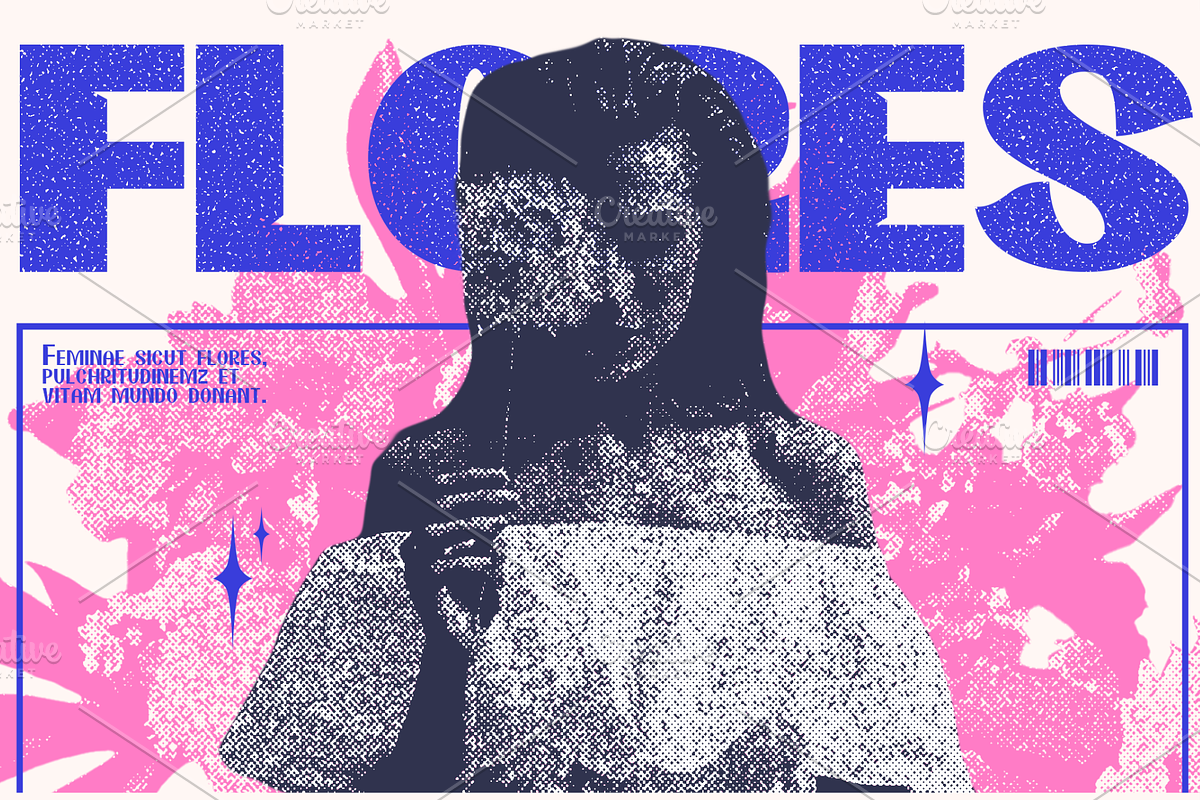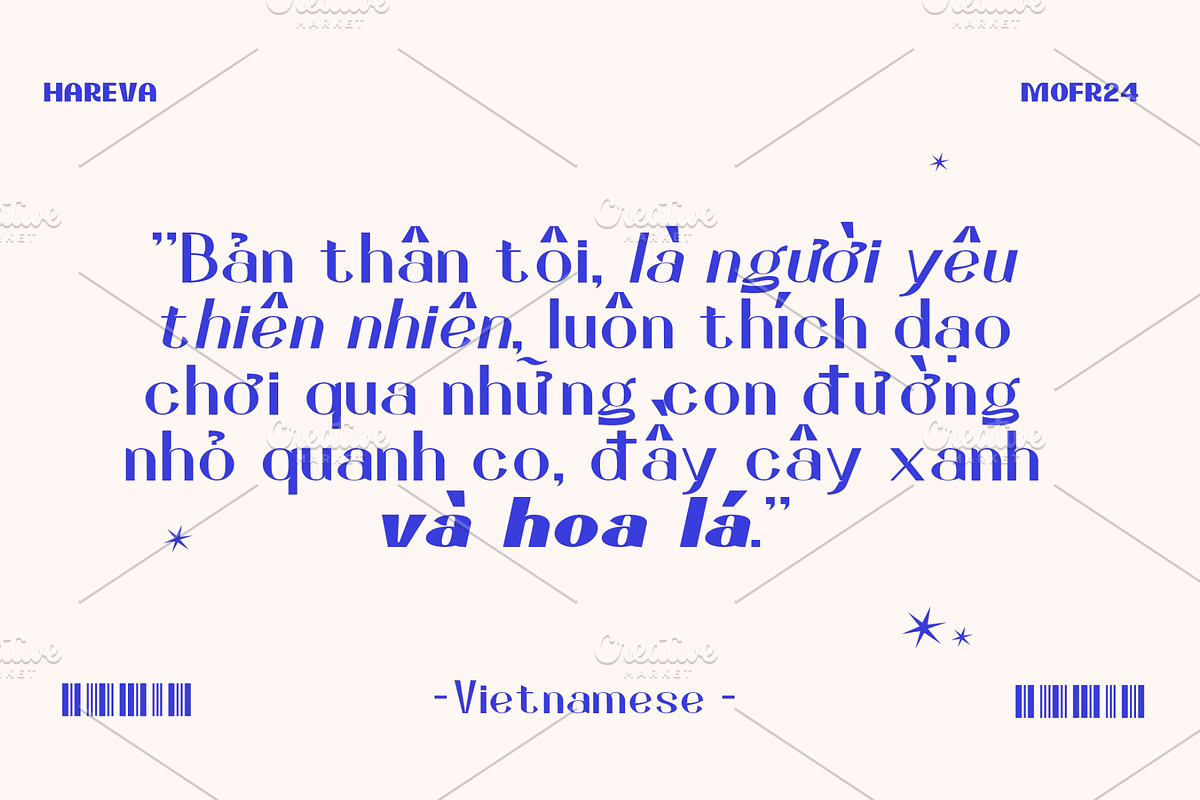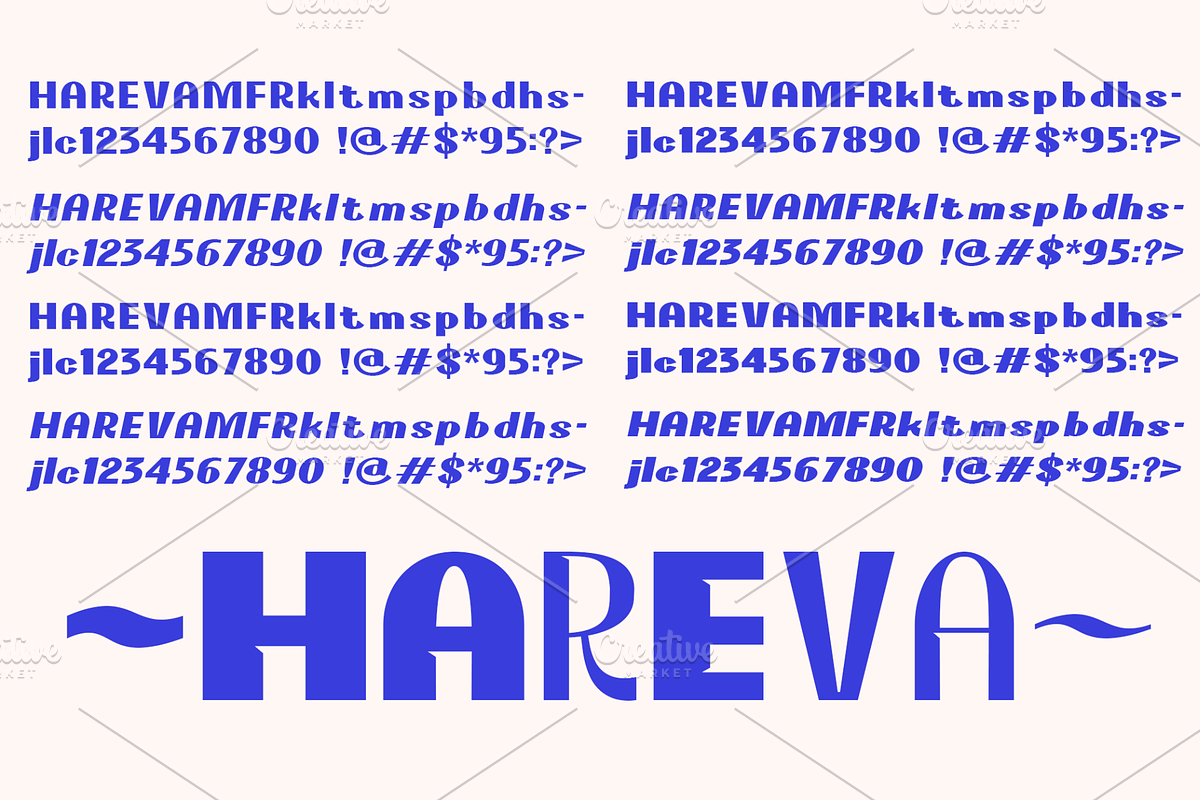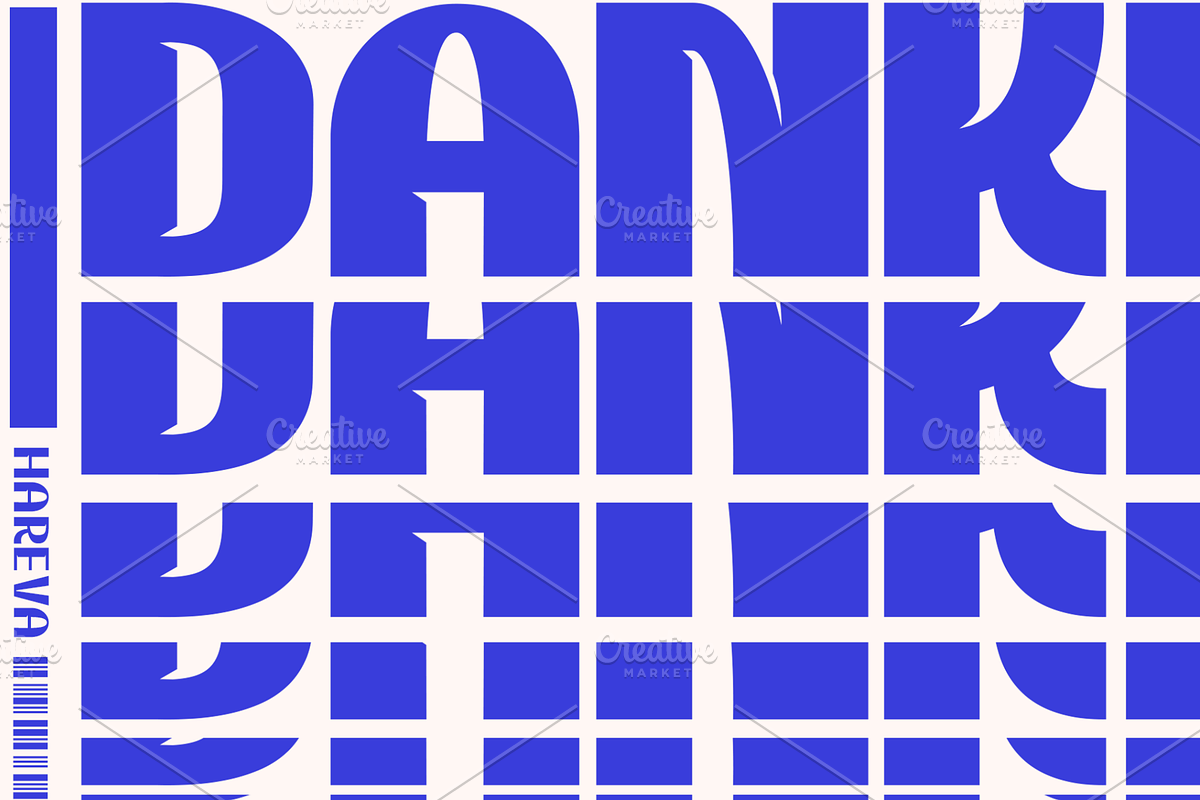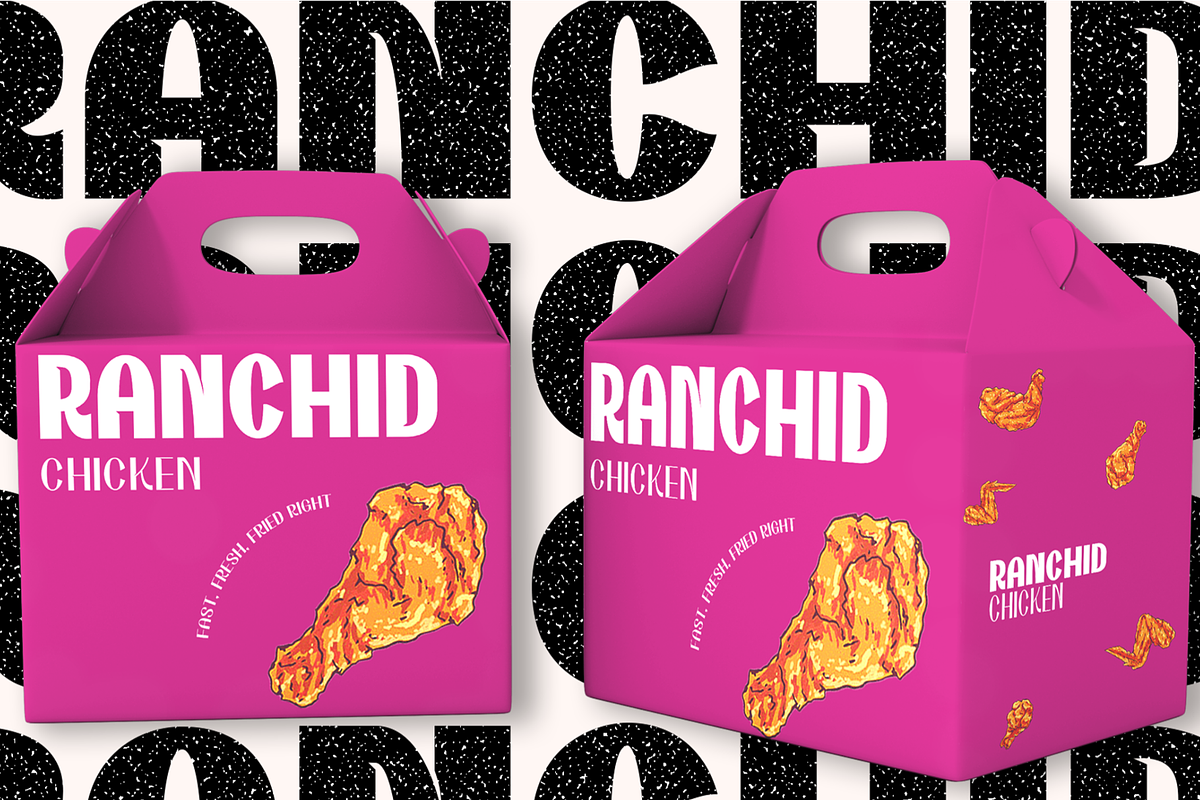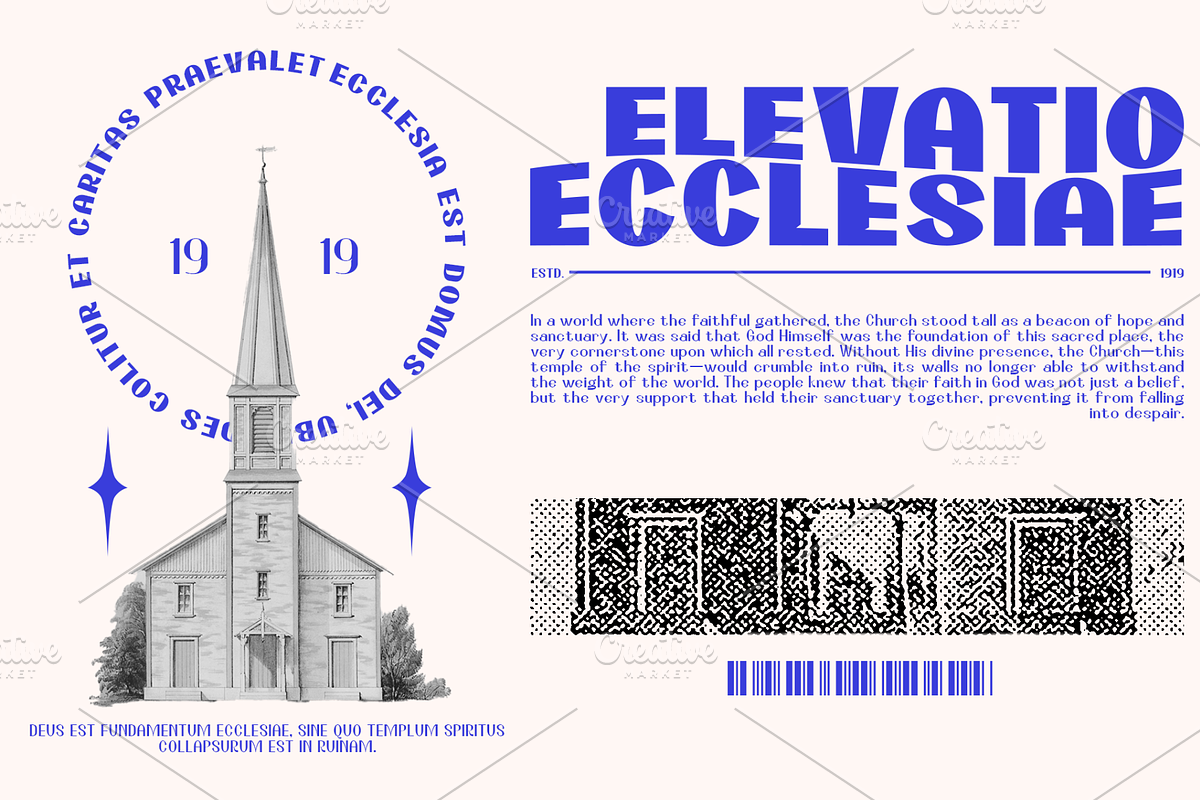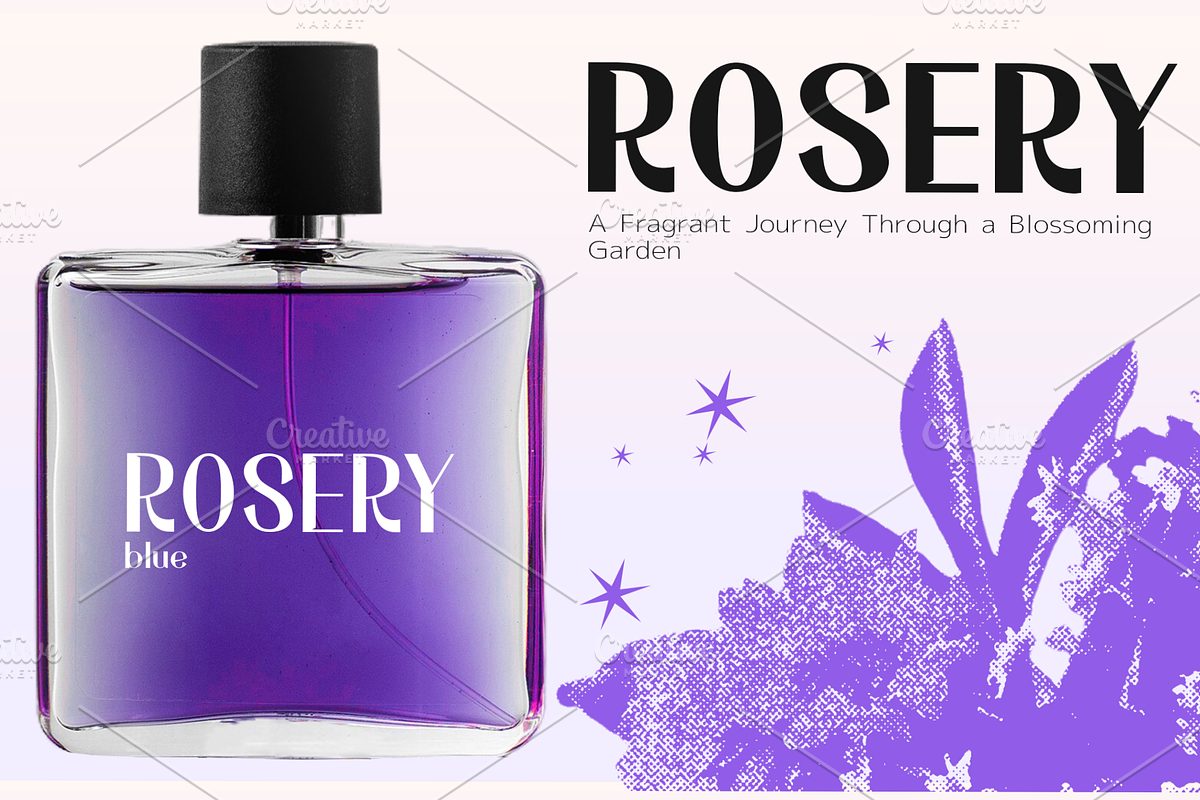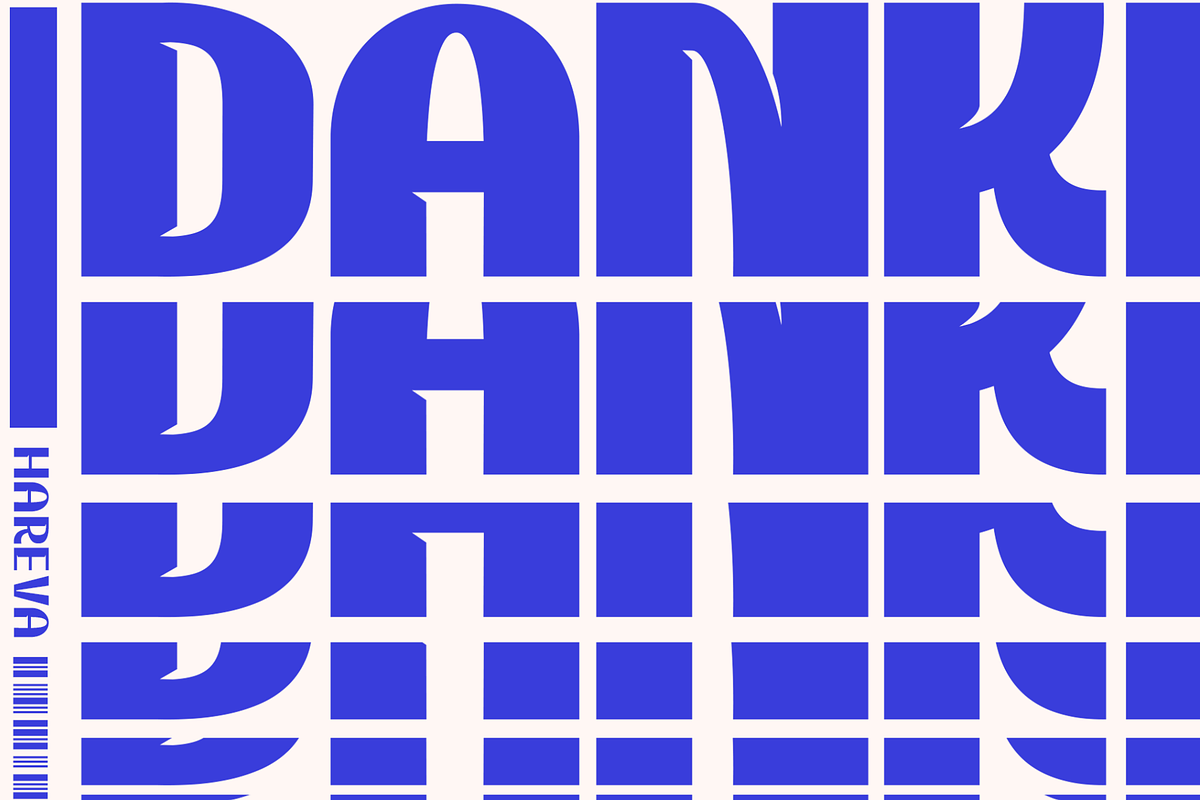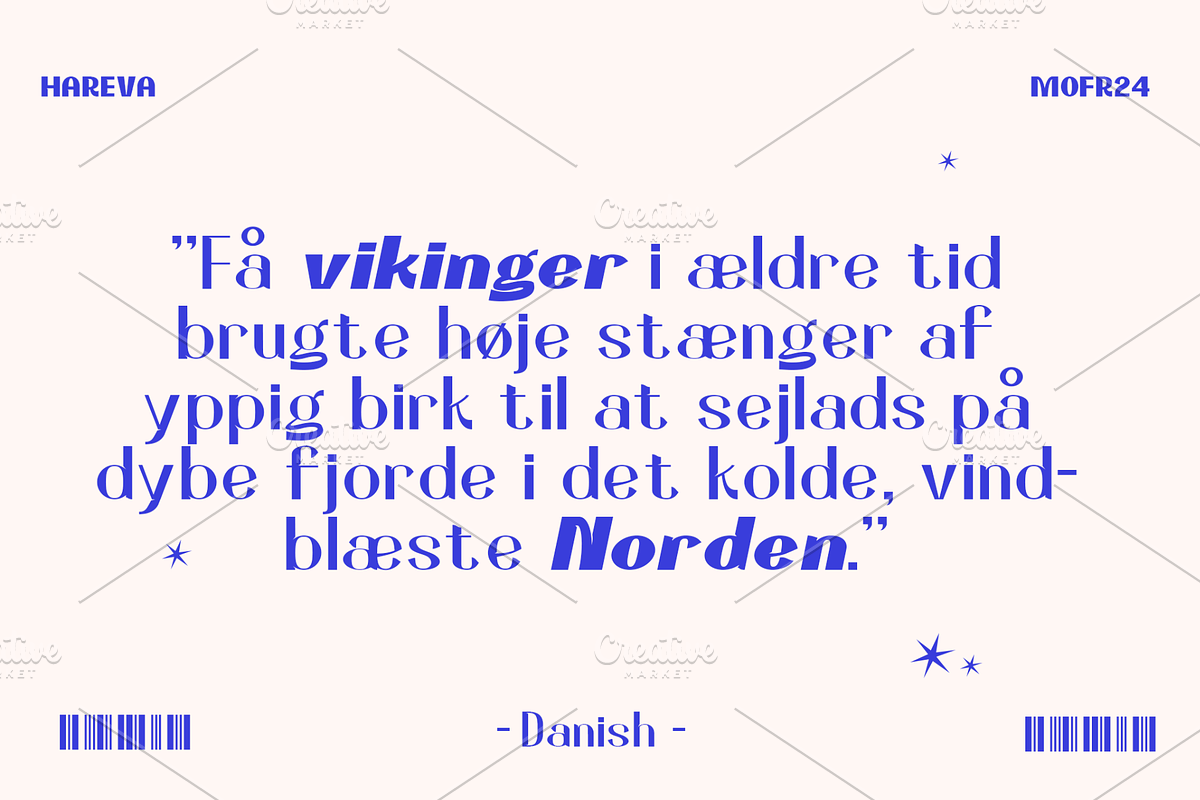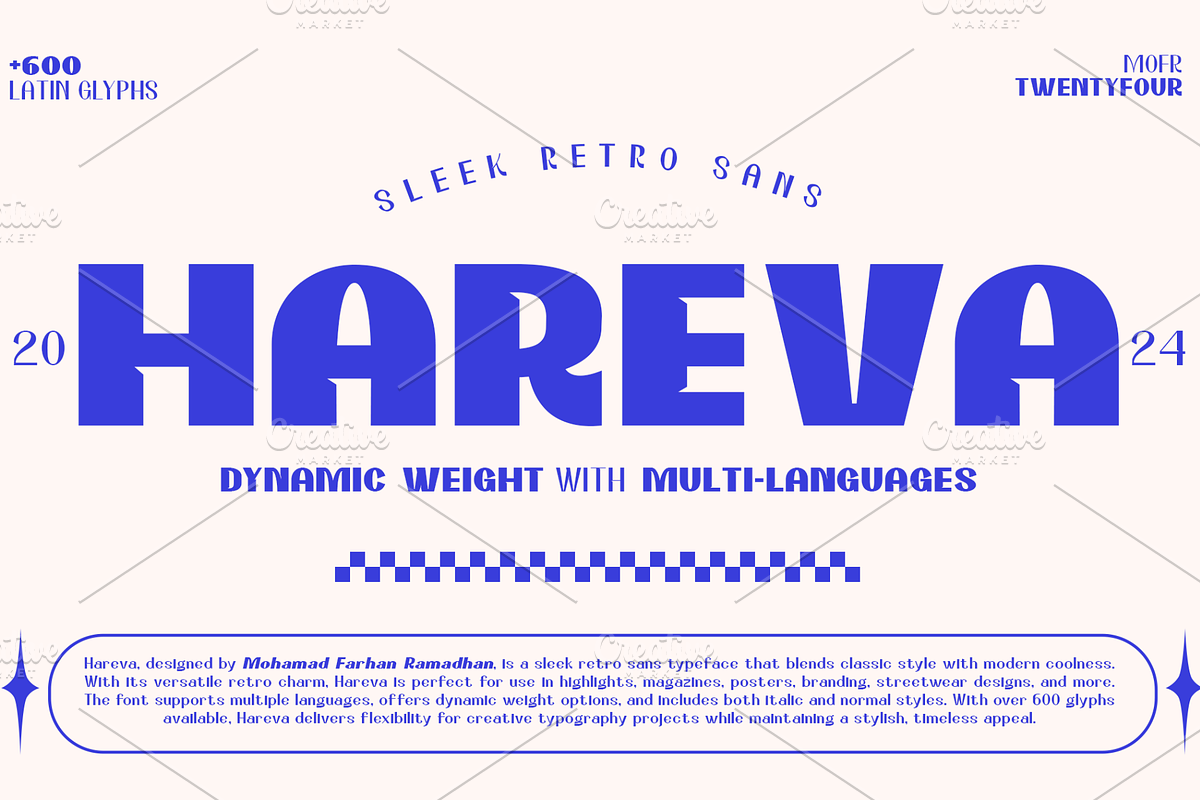
Hareva - Sleek Retro Sans
Forge an incredible fusion of yesteryears charm and modern aesthetics with Hareva, an exquisite font creation by Mohamad Farhan Ramadhan. Rendered in a streamlined retro sans-serif style, this typeface meets a myriad of artistic demands, fitting seamlessly into magazine titles, poster artwork, or distinctive streetwear branding. With its whimsical but time-honored appeal, Hareva imparts a unique personality to every design it graces.
Going beyond sheer style, Hareva offers practical functionality with its multi-language compatibility, flexible weight options, and availability in both italic and standard formatting. Designers can delve into a myriad of artistic depths with this well-equipped toolkit, transforming their work with beautiful subtlety or striking dramatic flair. With a generous offering of over 600 glyphs, Hareva unlocks the gates to a realm of endless creative exploration and potential.
From editorial layouts to logo creativity, or ferociously vibrant poster artworks, this typeface enchants with its chic yet whimsical presentation in every application. Step into the world of Hareva and lend your projects a dose of elegant audacity that never fails to command attention.